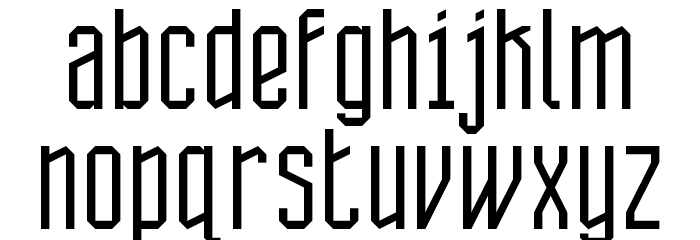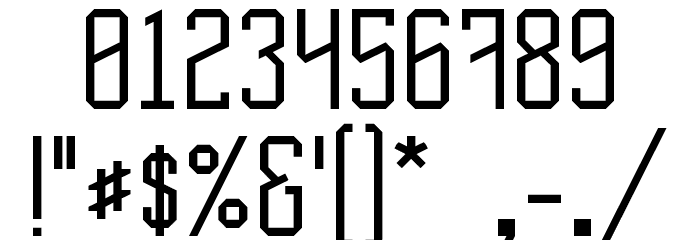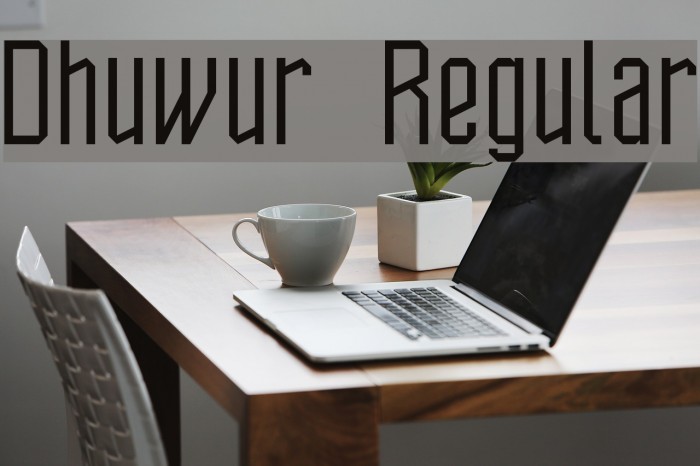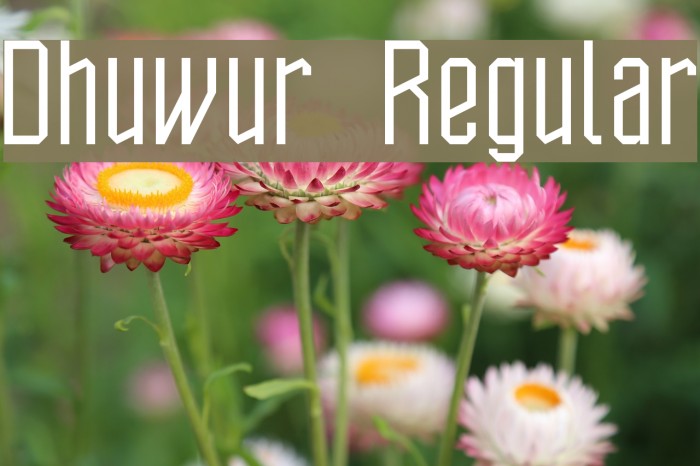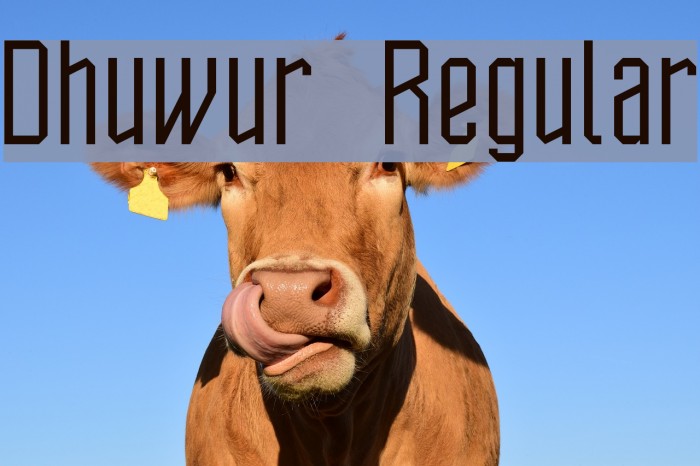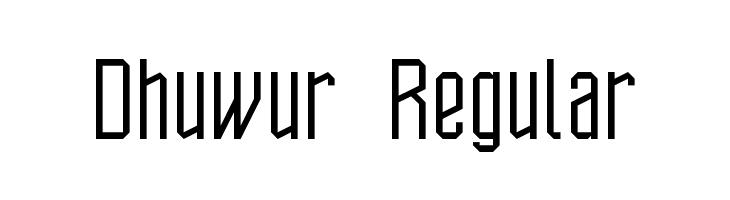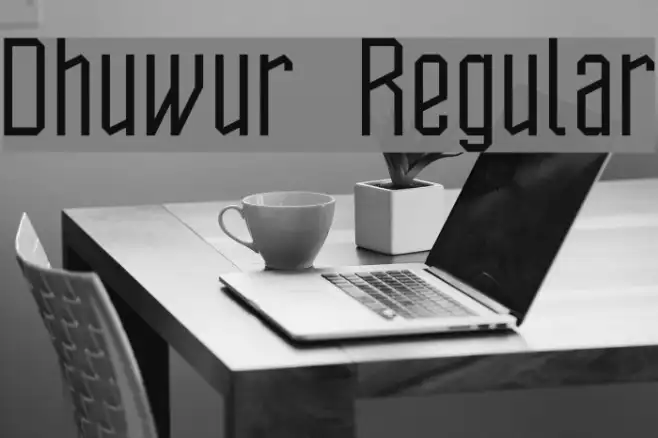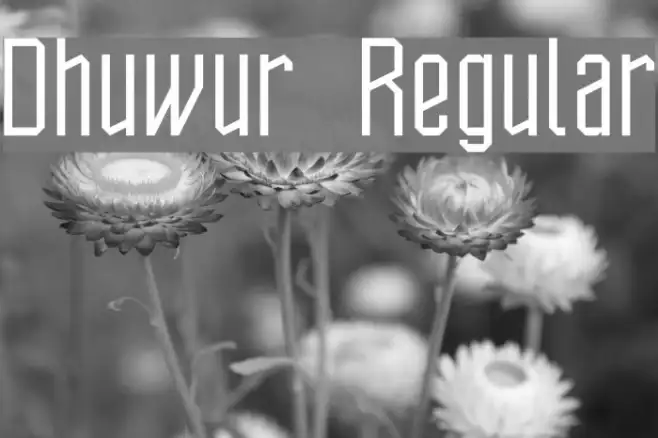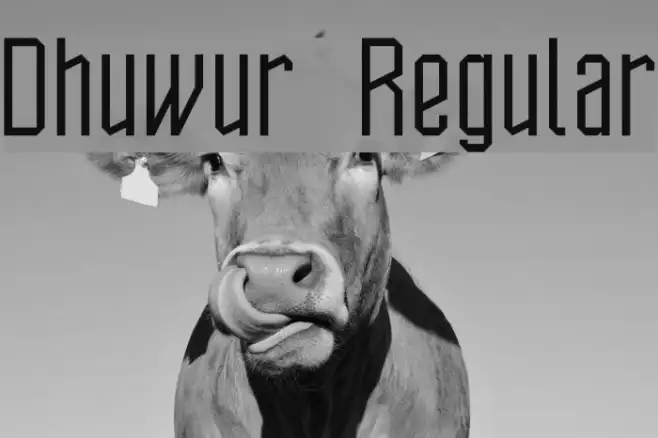
Dhuwur Regular Font
This font features a geometric and angular design, characterized by its sharp edges and clean lines. The uppercase and lowercase letters maintain a consistent height, giving it a uniform appearance. The numerals and special characters follow the same angular style, ensuring cohesion across all elements. The font's structure is reminiscent of architectural forms, with a modern and slightly futuristic aesthetic. Its distinct appearance makes it suitable for projects that require a bold and eye-catching typeface.
A geometric, angular font with a modern and futuristic aesthetic.
- Proposed Projects: Ideal for branding, posters, headlines, and digital interfaces that require a modern and striking look.